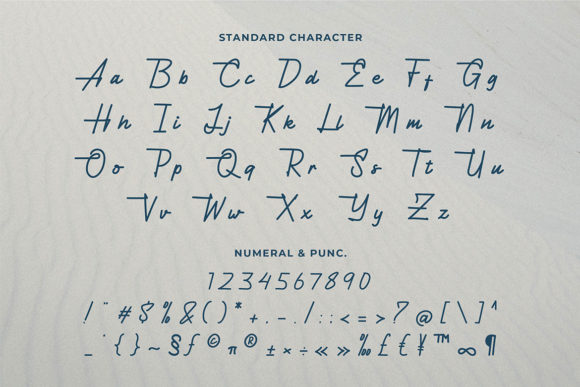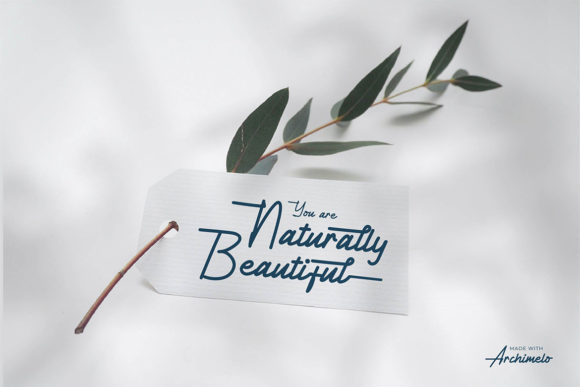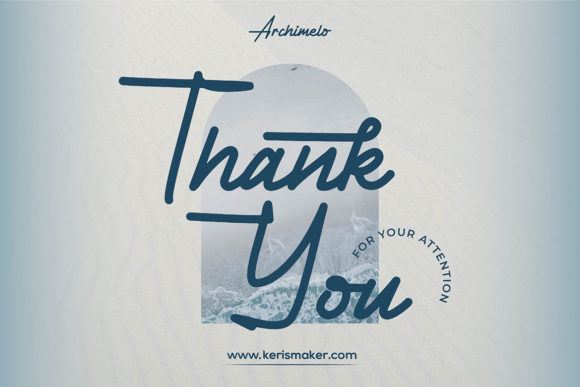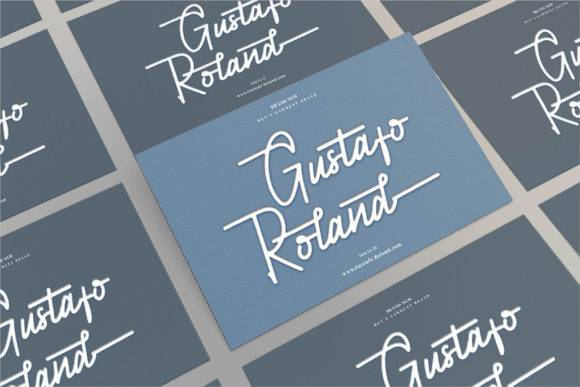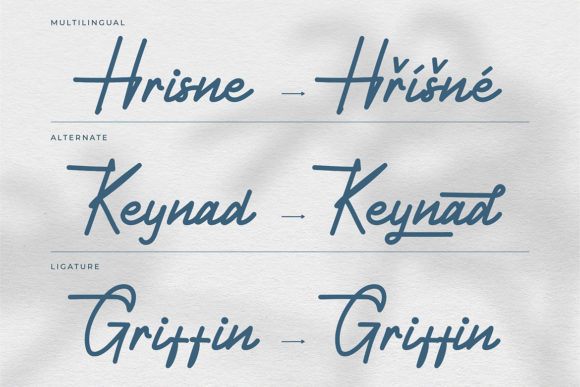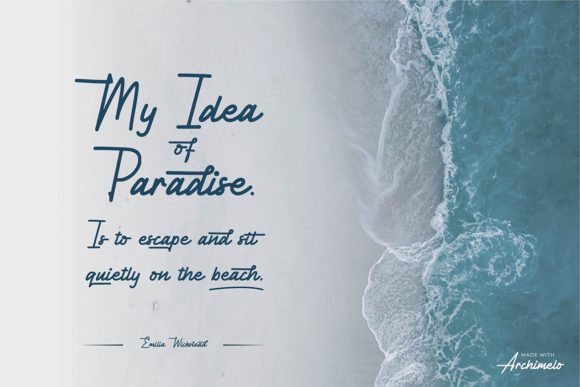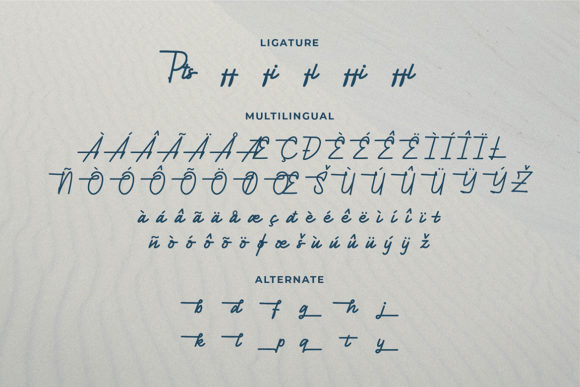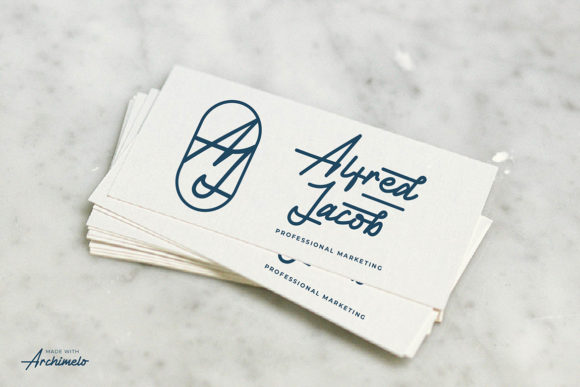
Archimelo Font
About Archimelo Font
Archimelo is a handwritten signature script with a natural & stylish flow. This font is good for logo design, Social media, Movie Titles, Books Titles, short text even long text letters, and good for your secondary text font with sans or serif.